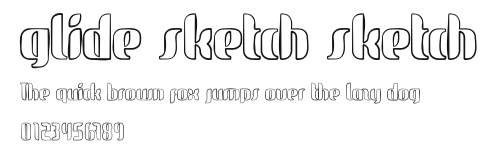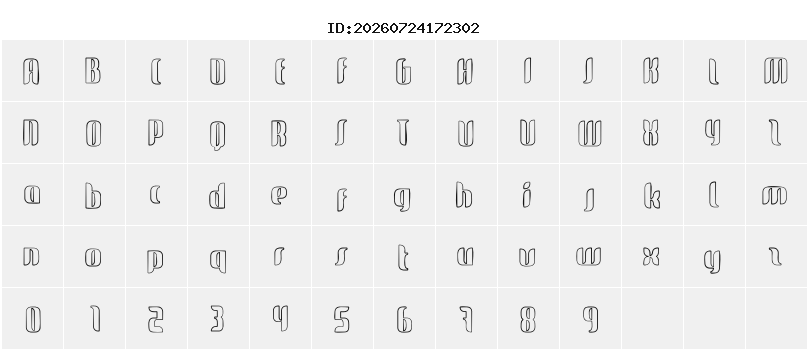
• Font Name: glide sketch sketch
• Full Font Name: glidesketchsketch
• PostScript Name: glidesketchsketch
About glide sketch sketch.otf
glide sketch sketch.otf is a modern, elegant sans-serif font designed for ultimate readability and visual harmony. Perfect for branding, headlines, web design, and print materials.